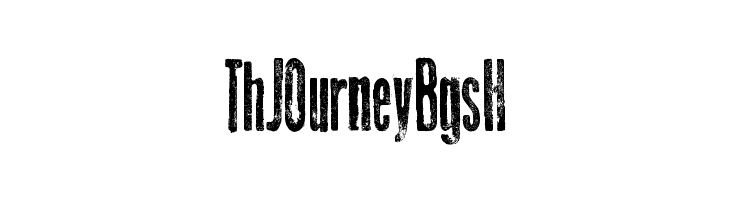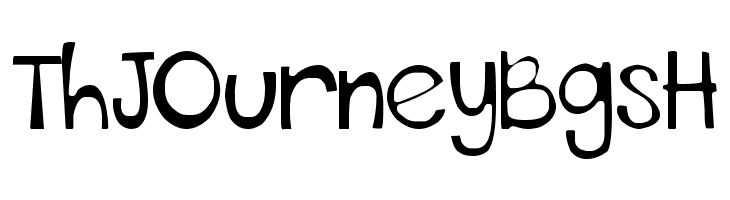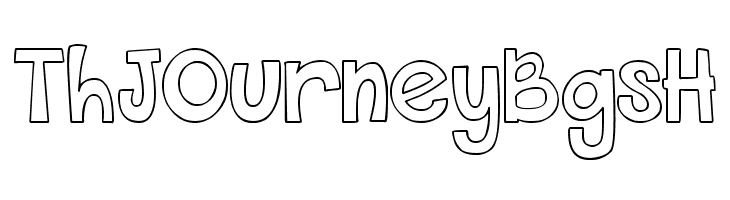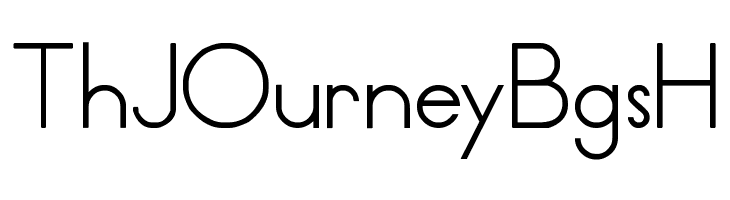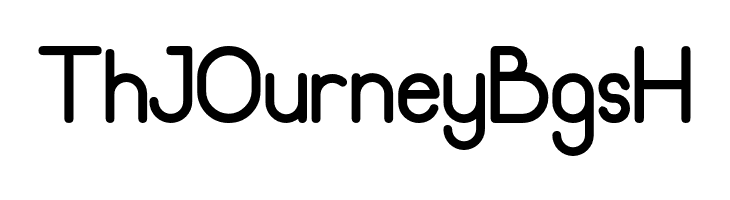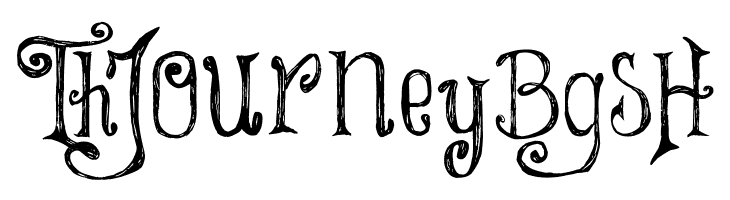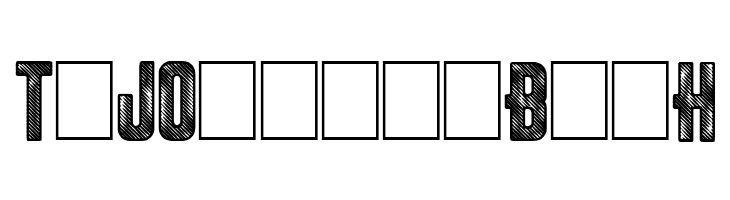
A sleek, modern font with thin lines and smooth curves, ideal for minimalist designs.
A distressed, textured font with a vintage, industrial feel.
A bold, rounded sans-serif font with a modern and approachable style.
A whimsical and decorative font with ornate, hand-drawn letterforms.
A bold, vintage-style font with textured, diagonal stripes and geometric shapes.
A bold, playful font with thick strokes and rounded edges.
A playful, bold, and hollow outlined font with a whimsical style.
A playful, bold font with a hand-drawn, whimsical style.